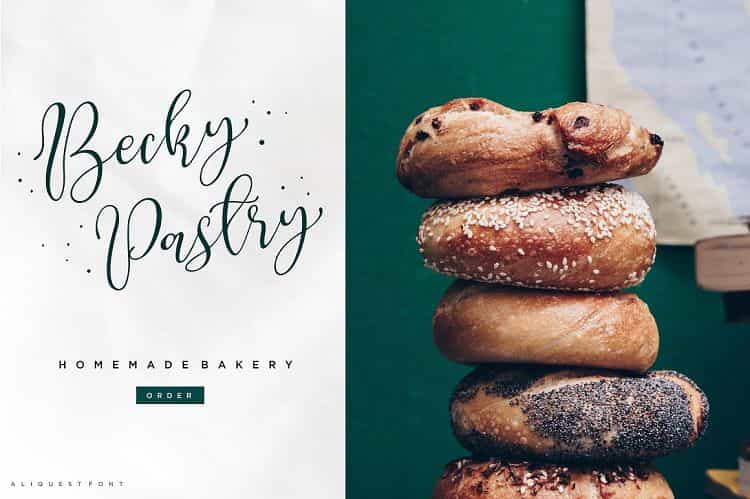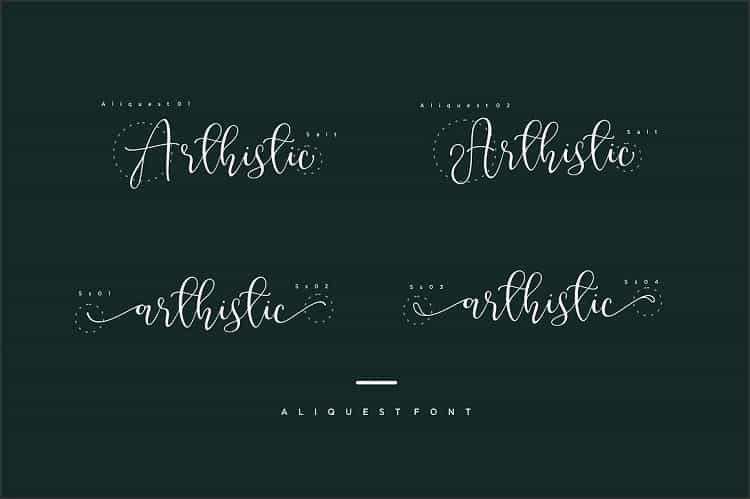
Introducing Aliquest Font. Aliquest – a new contemporary & fresh script with the stylish handwritten and script style makes this font appear natural, splendid, genuine and ideal for any awesome projects that need handwriting. Aliquest is a perfect font for many kinds of projects, like logos & branding, invitation, stationery, wedding designs,social media posts advertisements product packaging photography watermark special events or anything you want.